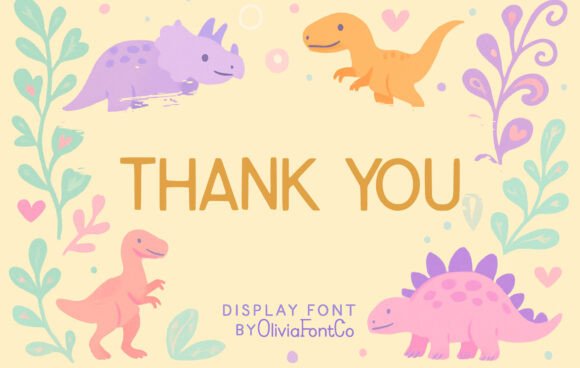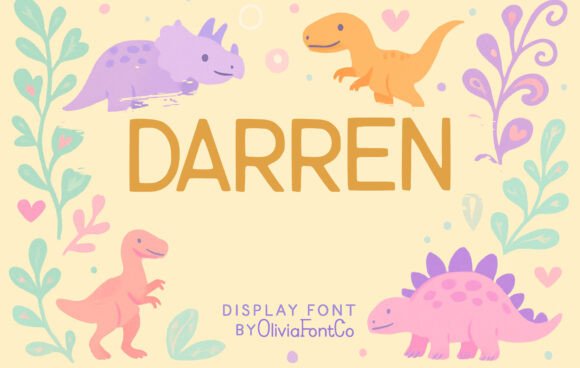
Discover the Versatility of Darren Font: Elevate Your Designs with Style
Are you on the hunt for a font that can take your creative projects to new heights? Look no further than Darren Font! This stunning typeface is designed to be a true favorite among designers and crafters, offering a perfect blend of style, legibility, and versatility. Whether you’re working on a magazine headline, t-shirt design, social media post, or wedding invitation, Darren Font is the perfect choice to make your designs shine.
What Makes Darren Font Stand Out?
Darren Font is more than just a pretty face – it’s a highly functional typeface that can be used in a wide range of design applications. Here are just a few reasons why Darren Font is quickly becoming a go-to choice among designers:
- Legibility: One of the standout features of Darren Font is its exceptional legibility. Whether you’re using it as a title or body text, this font is easy to read and understand, making it perfect for designs where clarity is key.
- Style: Darren Font has a unique and stylish aesthetic that’s sure to turn heads. Its clean lines, elegant curves, and balanced proportions make it a versatile choice that can be used in a wide range of design contexts.
- Flexibility: Whether you’re designing for print or digital, Darren Font is the perfect choice. It’s suitable for use in magazines, newspapers, books, and other publications, as well as on t-shirts, social media, and branding materials.
Endless Design Possibilities with Darren Font
So, what can you create with Darren Font? The possibilities are endless! Here are just a few ideas to get you started:
- Magazine Headlines: Use Darren Font to create eye-catching headlines that grab readers’ attention and draw them into your story.
- T-Shirt Designs: Create stylish and memorable t-shirt designs that showcase your brand or message.
- Social Media Graphics: Use Darren Font to create engaging social media graphics that help you connect with your audience and build your brand.
- Wedding Invitations: Add a touch of elegance and sophistication to your wedding invitations with Darren Font.
- Branding Materials: Use Darren Font to create consistent and recognizable branding materials that reflect your company’s values and personality.
Why Designers and Crafters Love Darren Font
Darren Font has quickly become a favorite among designers and crafters, and it’s easy to see why. Here are just a few reasons why this font is a must-have for any creative:
- Easy to Use: Darren Font is incredibly easy to use, even for those who are new to design. Its clean and intuitive design makes it simple to get started and achieve professional-looking results.
- Highly Customizable: With Darren Font, you can customize your designs to fit your unique style and vision. Experiment with different colors, textures, and effects to create truly one-of-a-kind designs.
- Exceptional Quality: Darren Font is built to last, with exceptional quality that will stand up to even the most demanding design applications.
Get Ready to Take Your Designs to the Next Level
In conclusion, Darren Font is an exceptional typeface that offers a perfect blend of style, legibility, and versatility. Whether you’re a seasoned designer or just starting out, this font is sure to inspire and empower you to create stunning designs that take your creative ideas to the highest level.